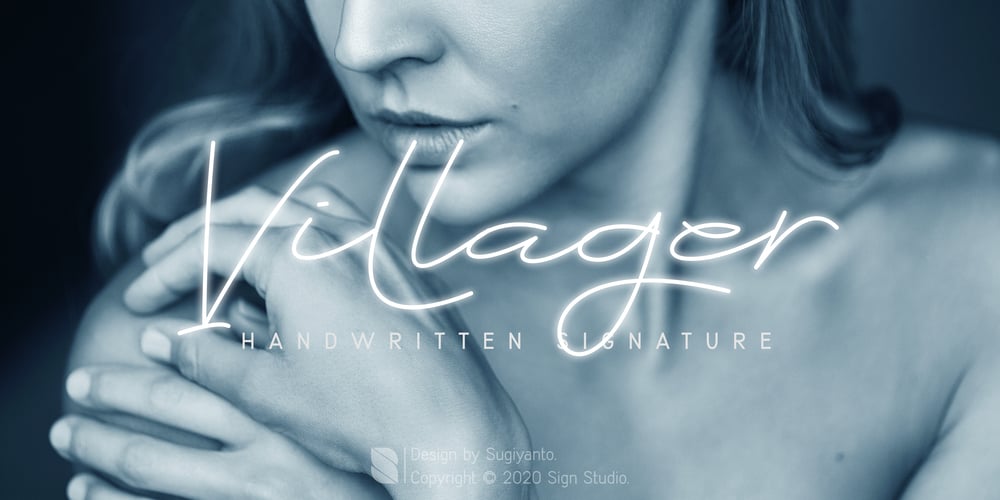
Villager
Villager font
Villager Font Family was designed by Sugi Yanto and published by Sign Studio. Villager contains 1 styles and family package options. Villager font created with a simulated ballpoint will give it a natural handwritten shape. It’s perfect for a signature, diary, business card, greeting card or printed product with a casual theme. With the discretionary ligature and alternate characters, it will make you a good choice of writing variations.